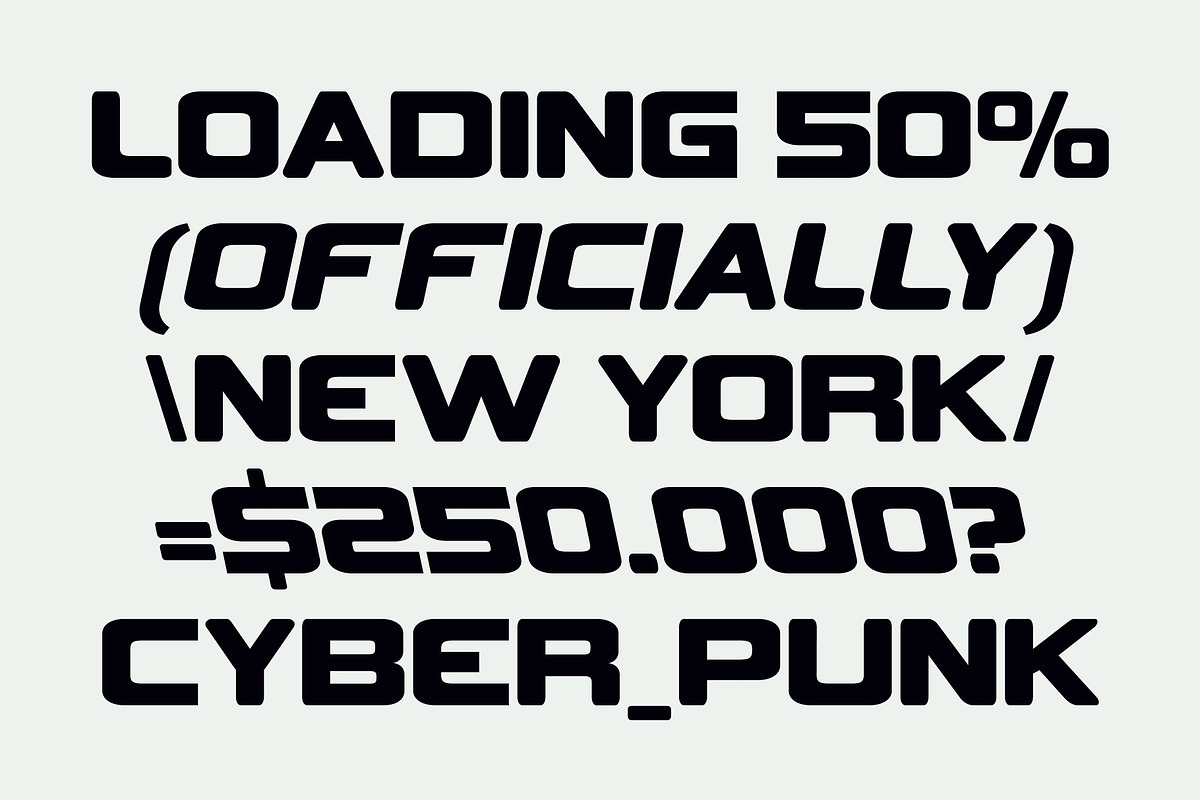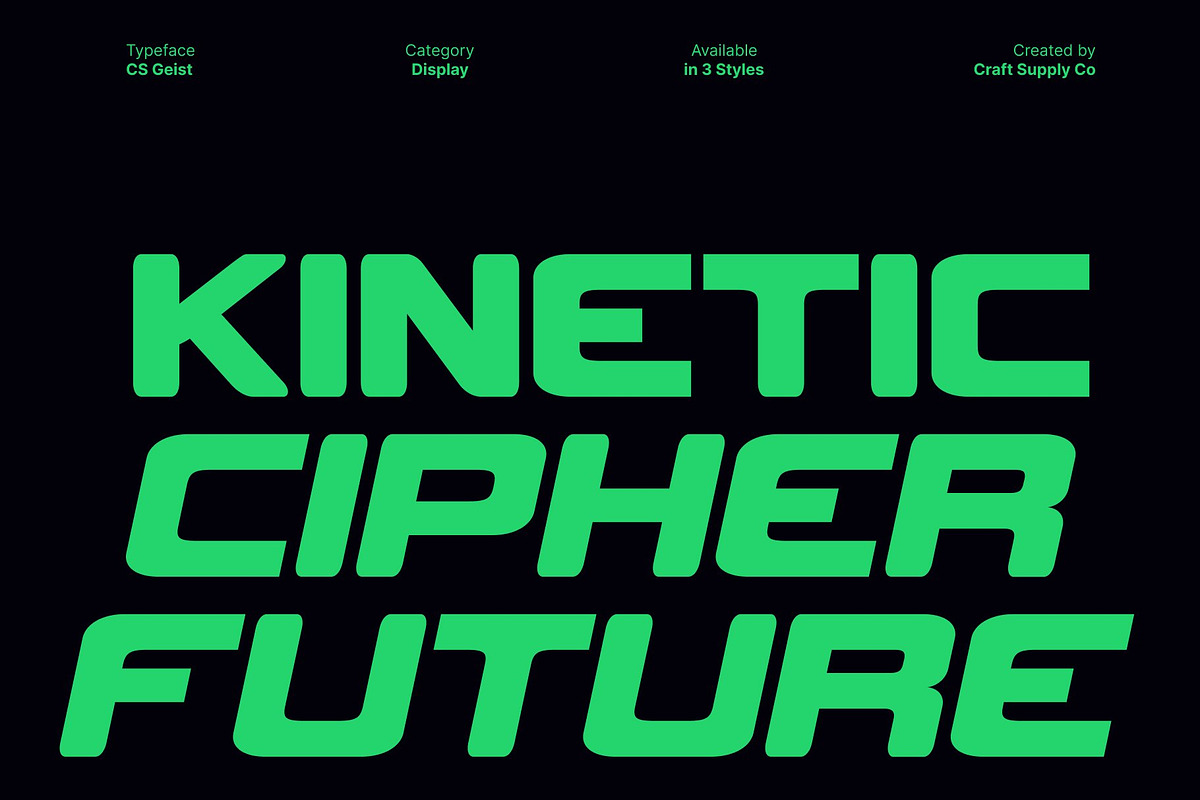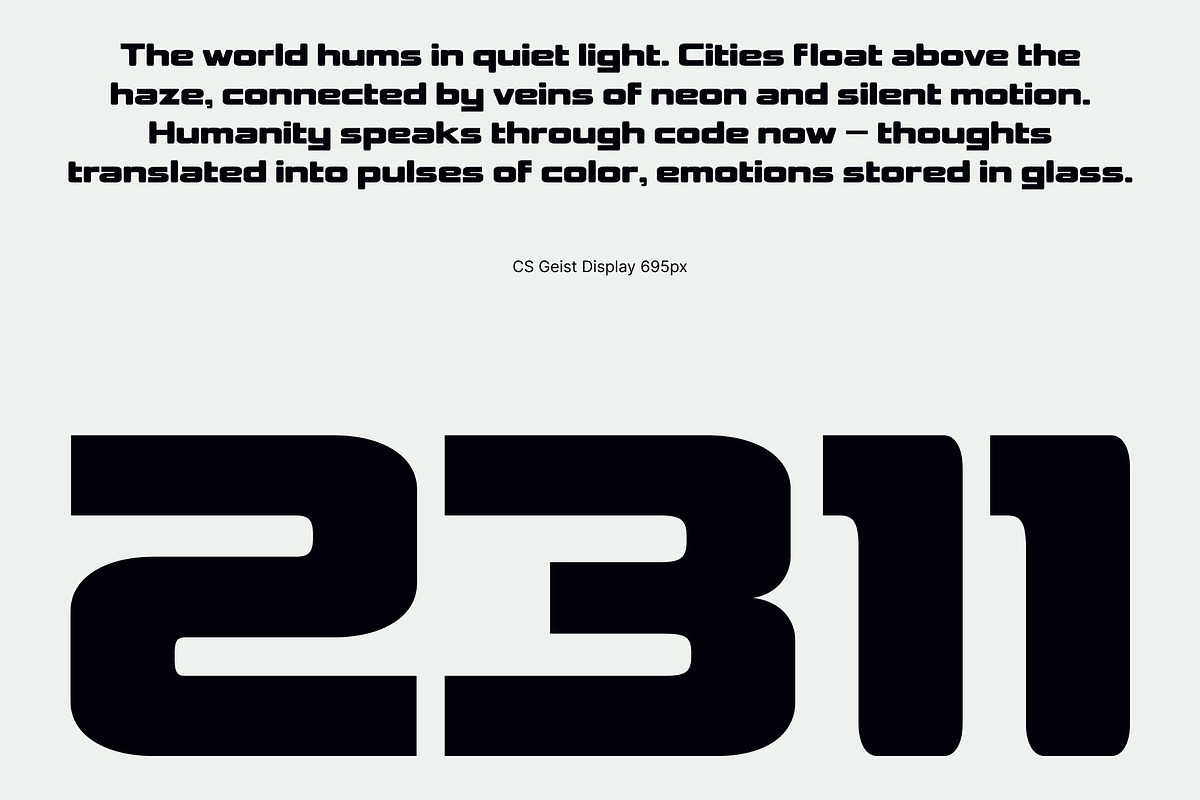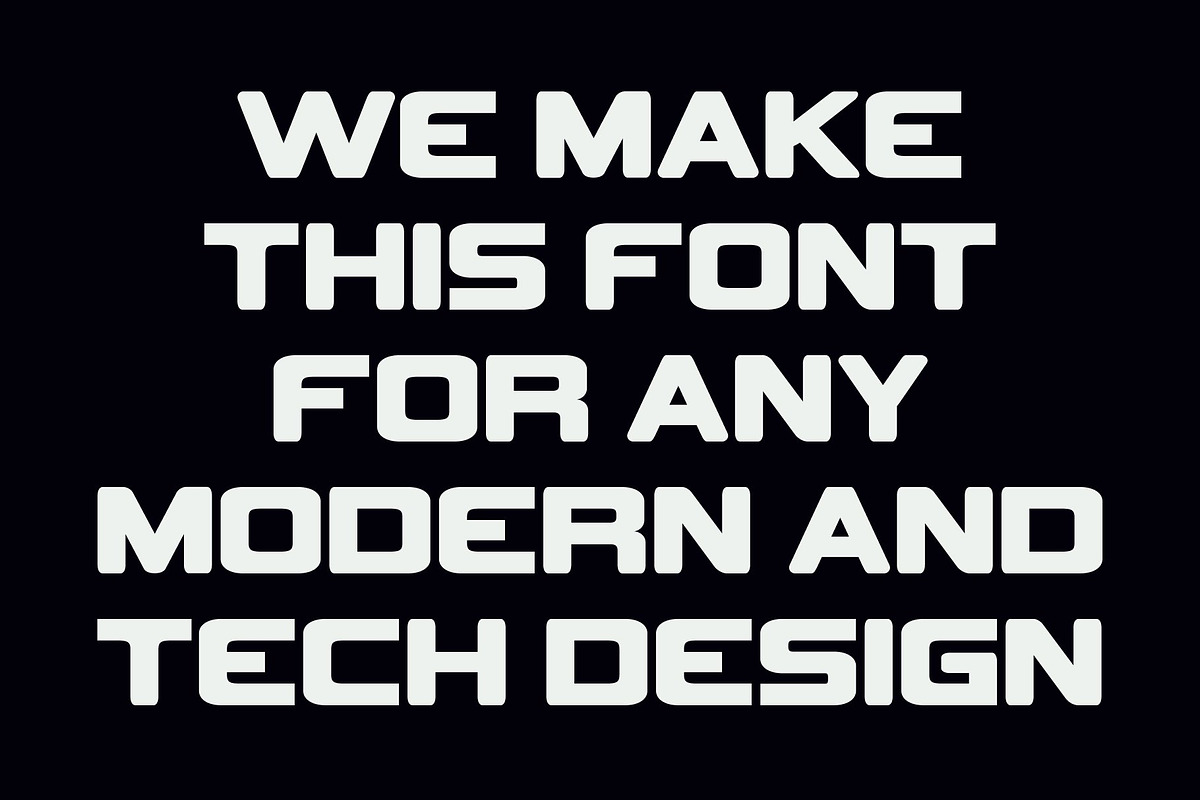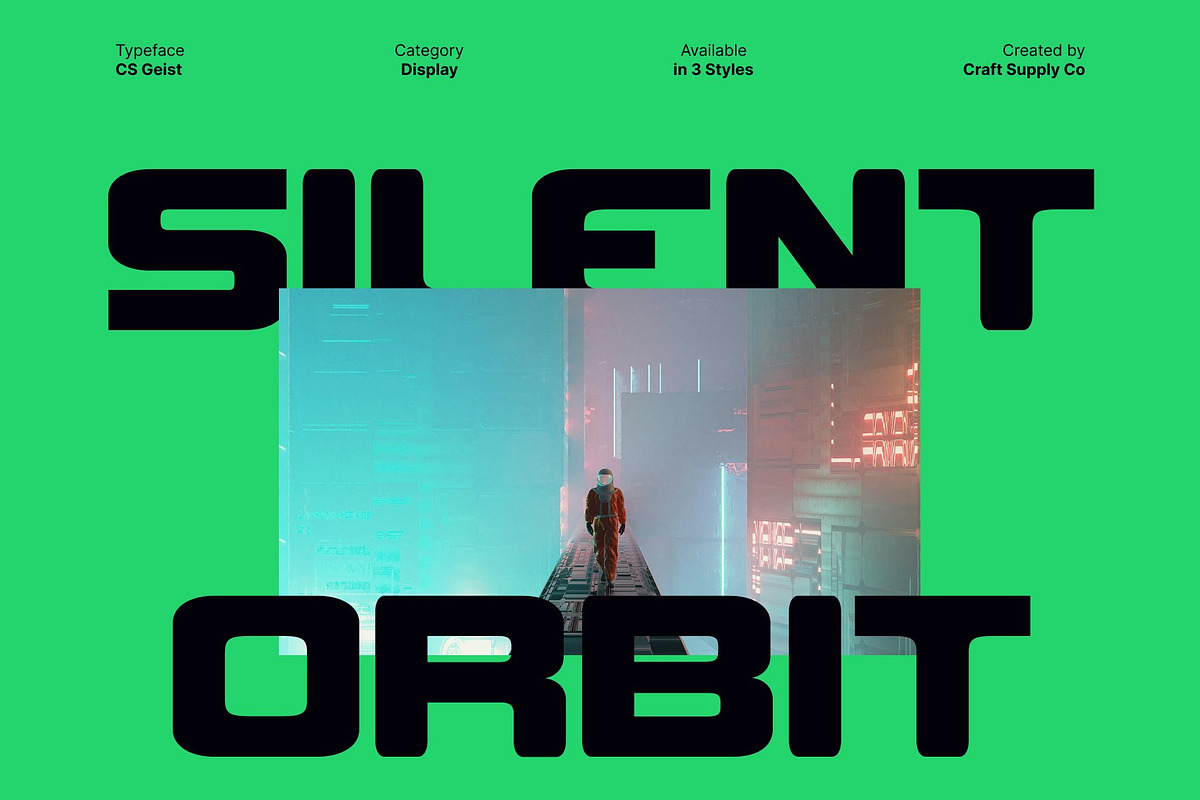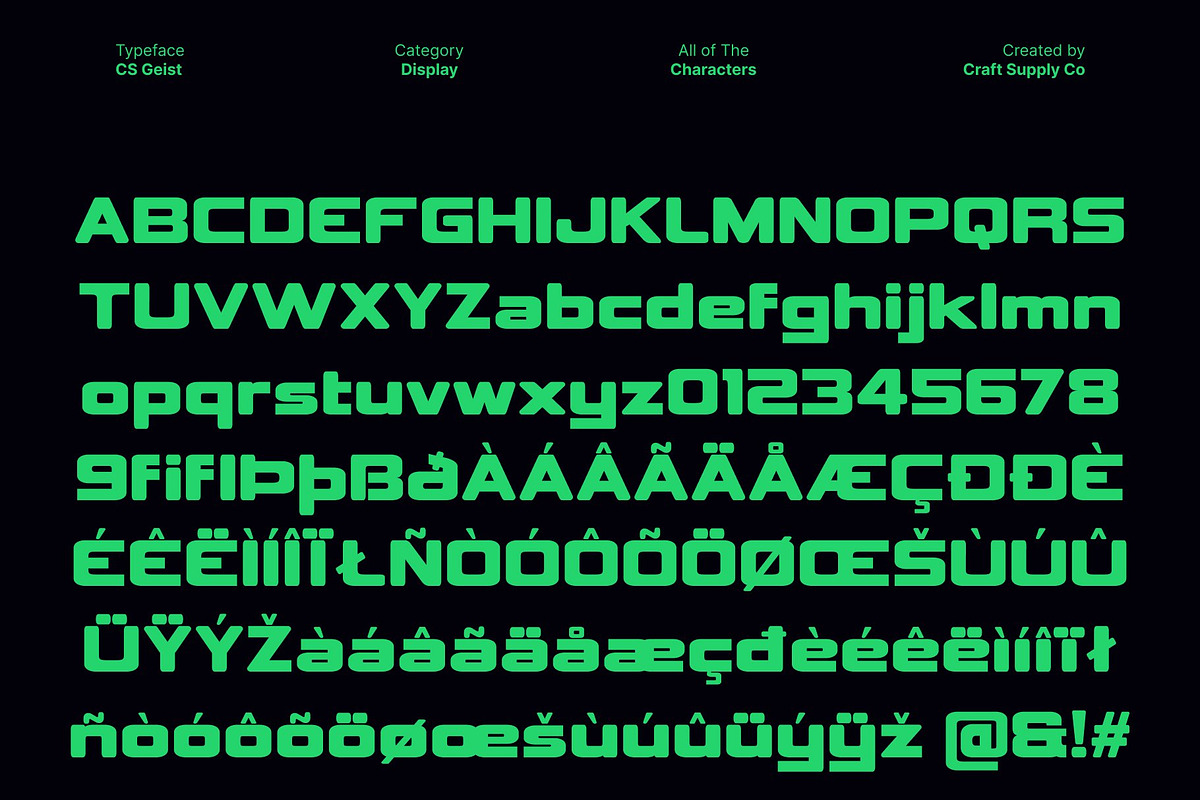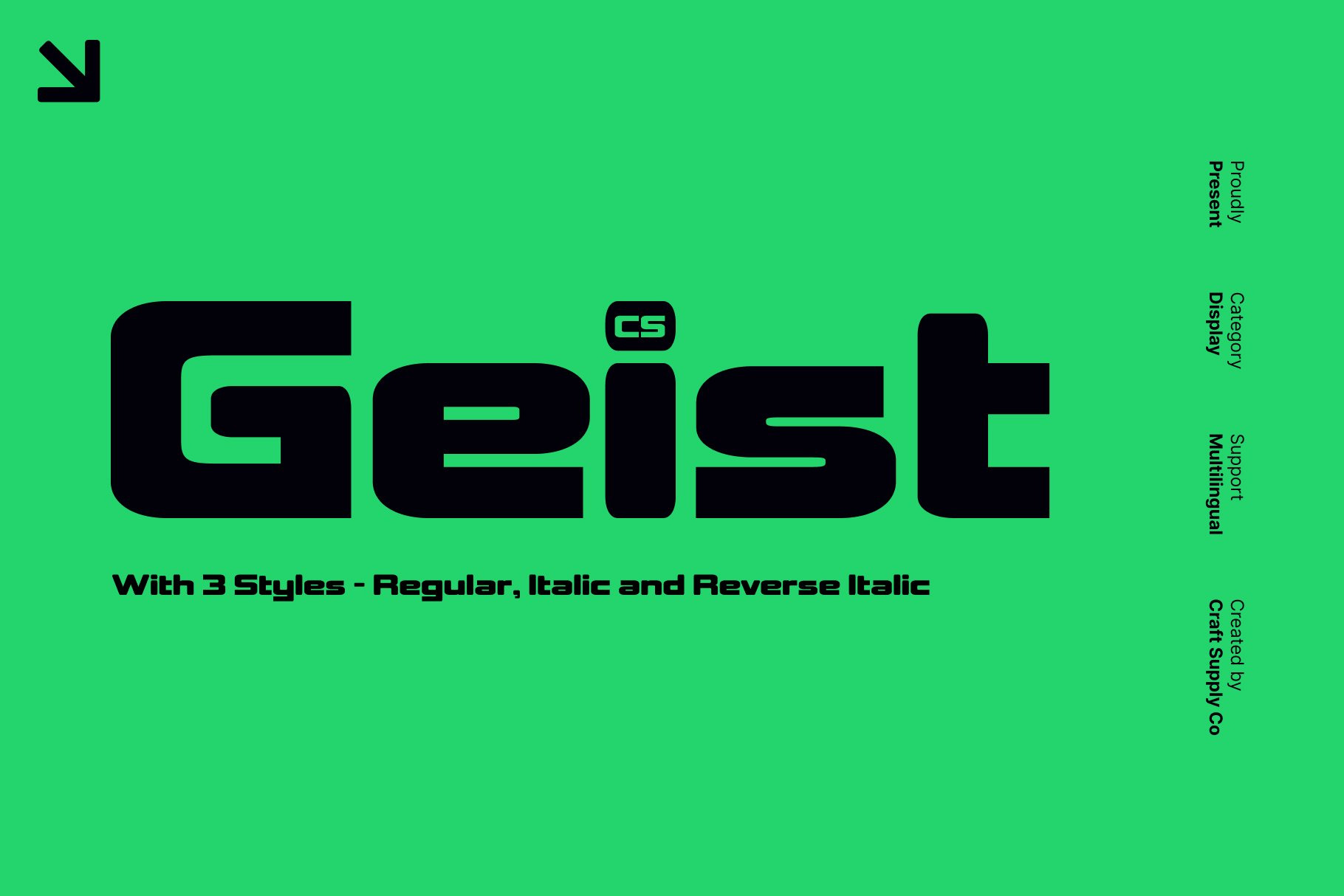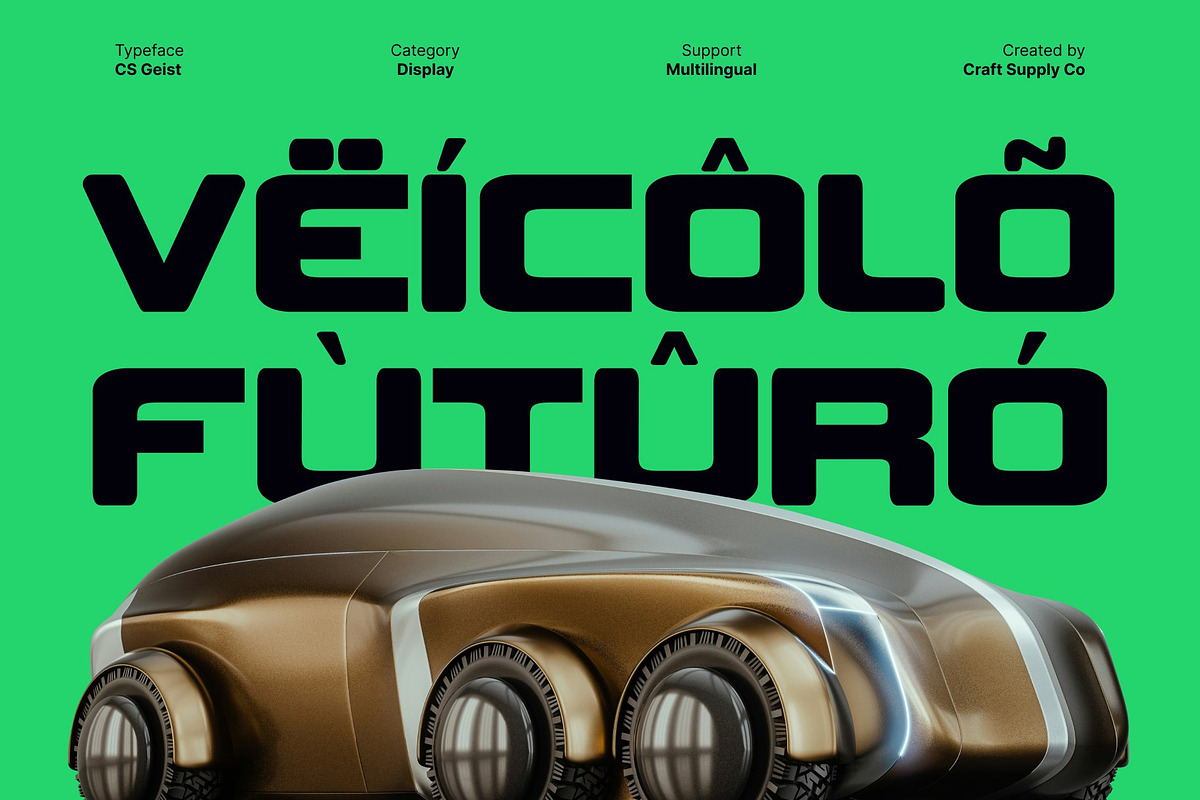
CS Geist – Techno Font
CS Geist – Techno Inspired Sans Serif with Modern Energy: Bold Display Font for Dynamic Design
Bold and Striking Letterforms This is a techno inspired sans serif font designed to make a strong visual impact. Its sharp, confident shapes convey modernity and power, ensuring your text stands out in any creative project. Perfect for branding, logos, and poster designs that demand attention.
Modern Energy and Futuristic Appeal With its dynamic, forward looking design, this font embodies a sense of speed, technology, and contemporary style. Its clean lines and structured forms create a polished, professional appearance while retaining an energetic, edgy character.
Versatile for Display Applications This font is ideal for headlines, branding, and editorial projects, offering both clarity and bold presence. The techno inspired style adapts seamlessly to digital and print media, making it perfect for projects that require a modern, high impact aesthetic.
Perfect for Creative and Professional Projects Whether used for corporate branding, promotional posters, or futuristic campaigns, this font delivers a strong, modern personality. Its combination of bold geometry and energetic design ensures every project communicates innovation, strength, and contemporary flair.